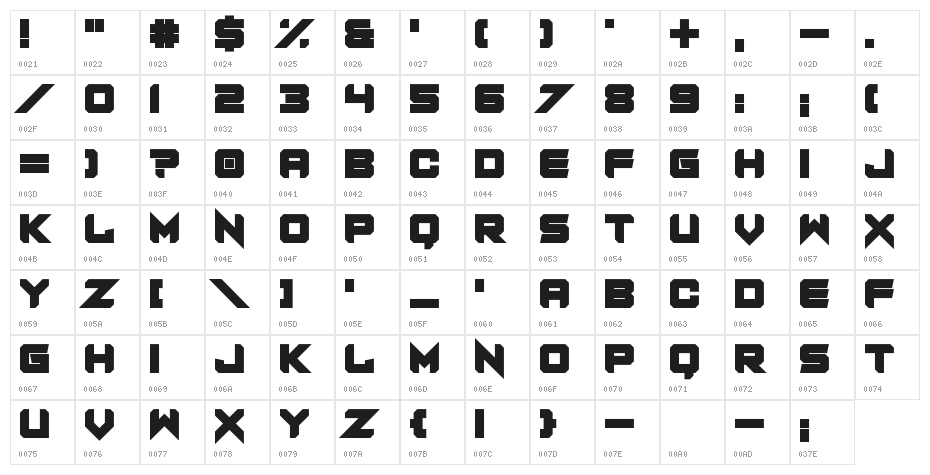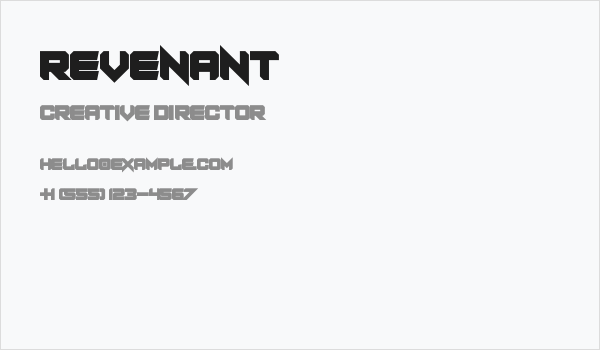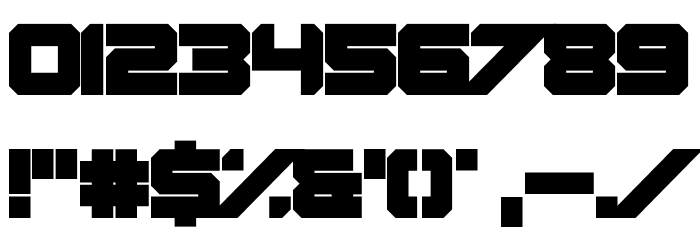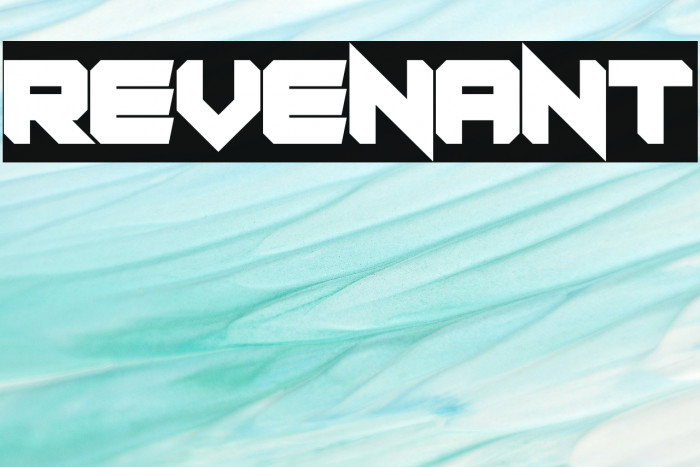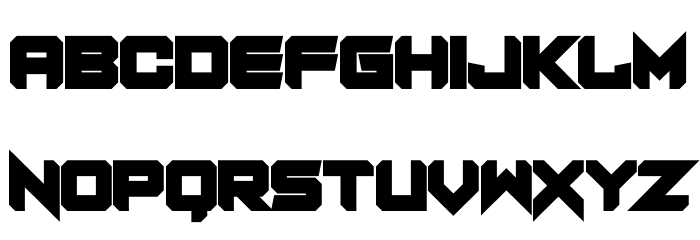
Revenant Font
Revenant Description
This font features a bold, geometric design with sharp angles and a futuristic aesthetic. The characters are blocky and robust, creating a strong visual impact. The uppercase and lowercase letters maintain a consistent style, with the uppercase being slightly more pronounced. Numbers and special characters follow the same angular theme, ensuring uniformity across all glyphs. The font's unique style is reminiscent of digital or sci-fi themes, making it ideal for projects that require a modern and edgy look.
| Proposed Projects | Ideal for sci-fi themed posters, video game titles, tech branding, and futuristic event flyers. |